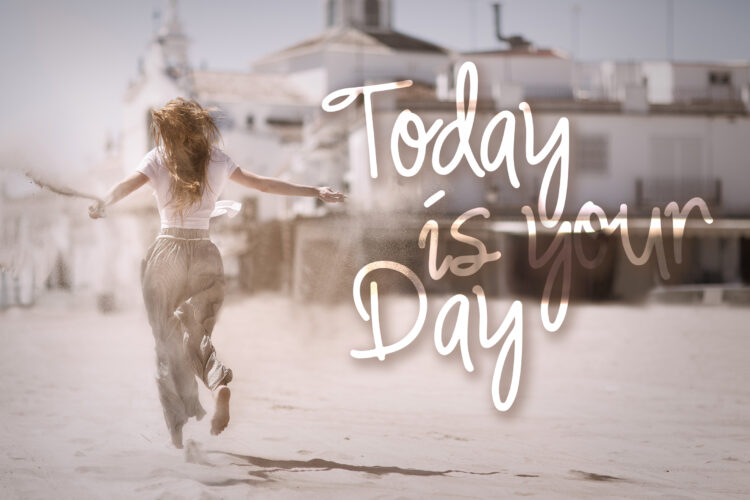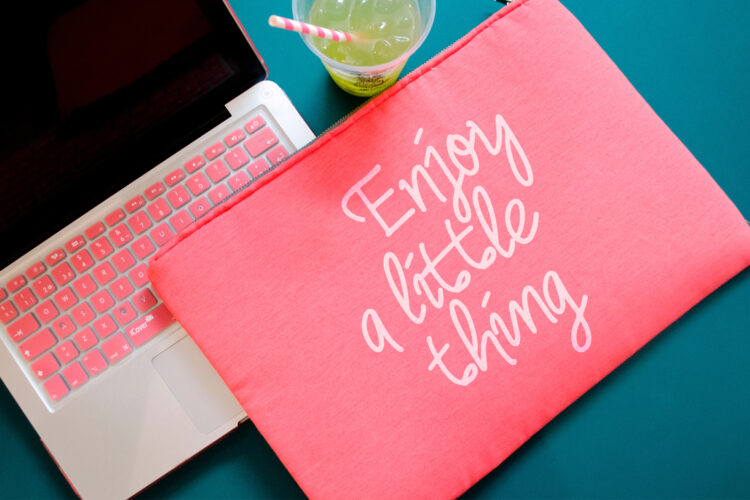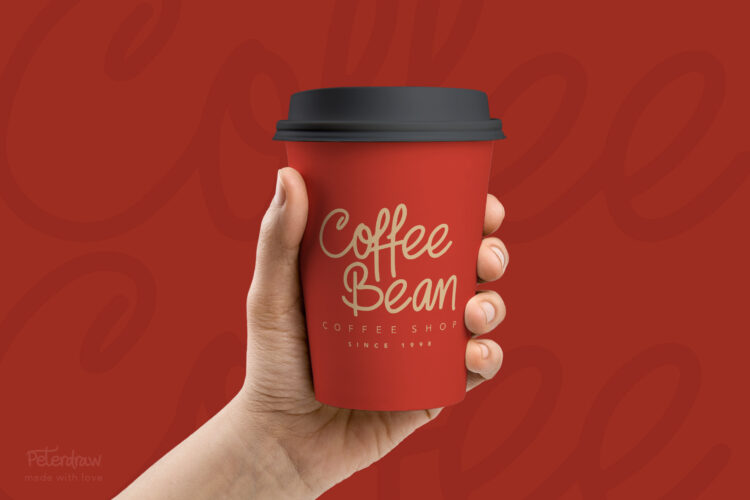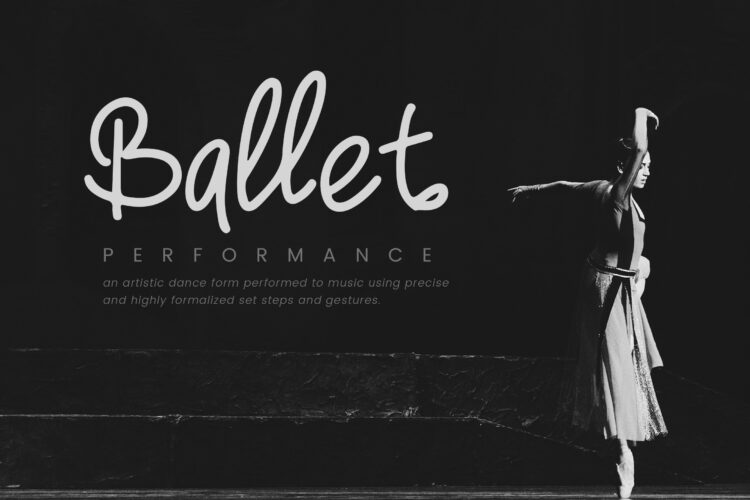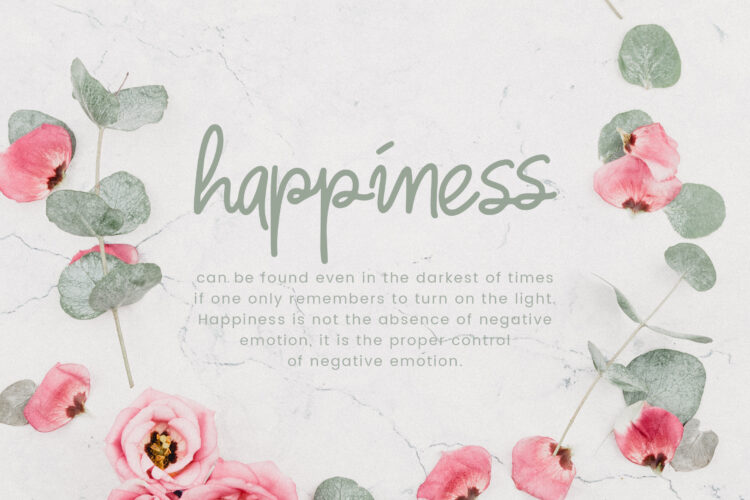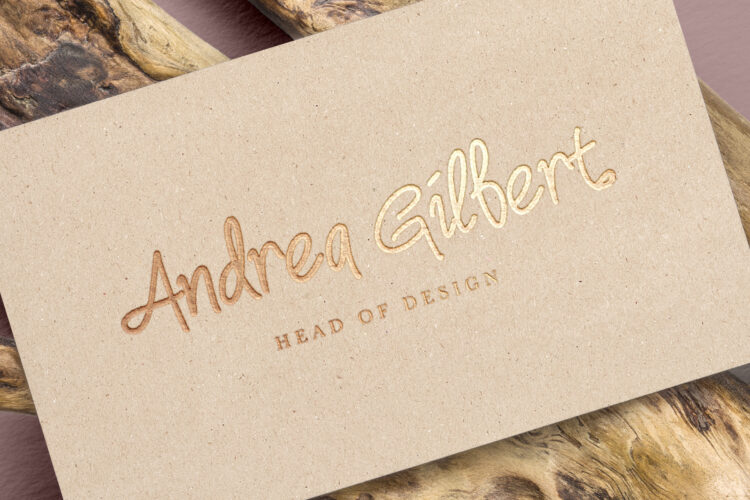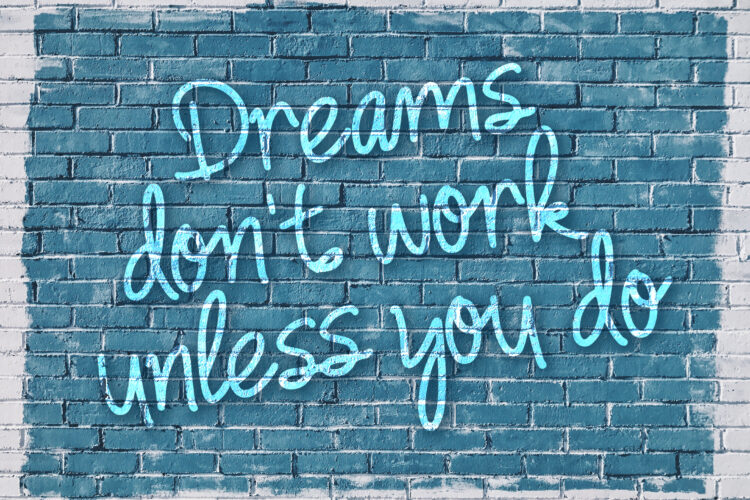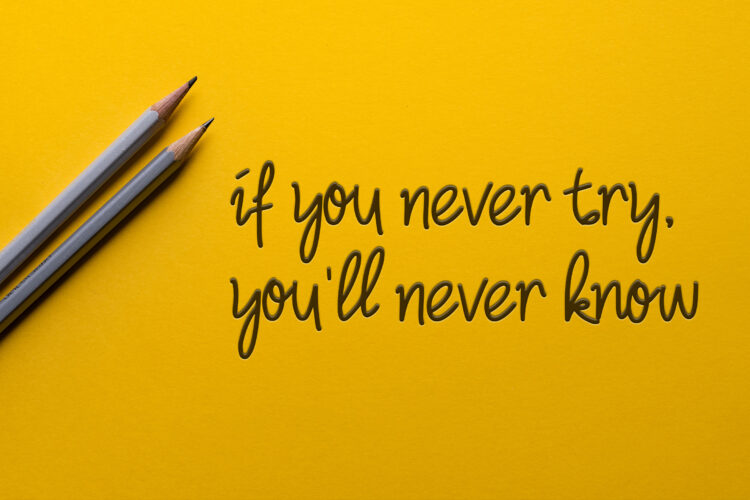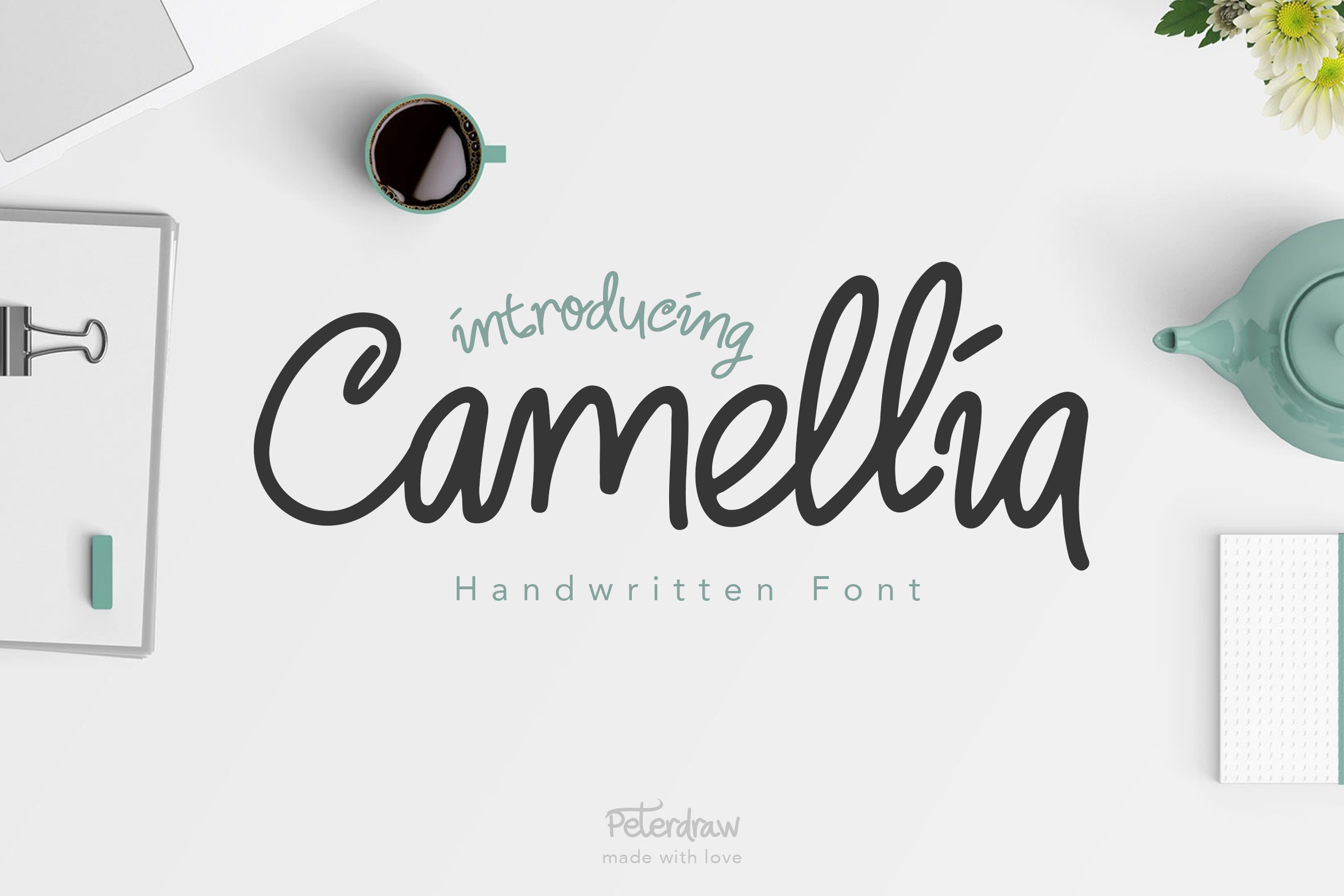
As beautiful as camellia blooms in spring, Camellia Beauty Monoline Font brought to you with fun, elegant and graceful feels. It is suitable for branding projects, product packaging, business cards, quotes, or any other display project. It is also a perfect choice for a stylish text overlay to any background image.
Every package of this item consists of fun, elegant and clean characters that available in uppercase and lowercase letters, numbering and punctuation. It also includes 40+ handwriting ligatures that are perfect to complement your text or script works. Available in OTF format file only.
Camellia features:
- Font type with fun, elegant and clean character. It is perfect for the beauty and any clean layout.
- 40+ handwriting ligatures
- Uppercase & Lowercase letters
- Numbering and Punctuation